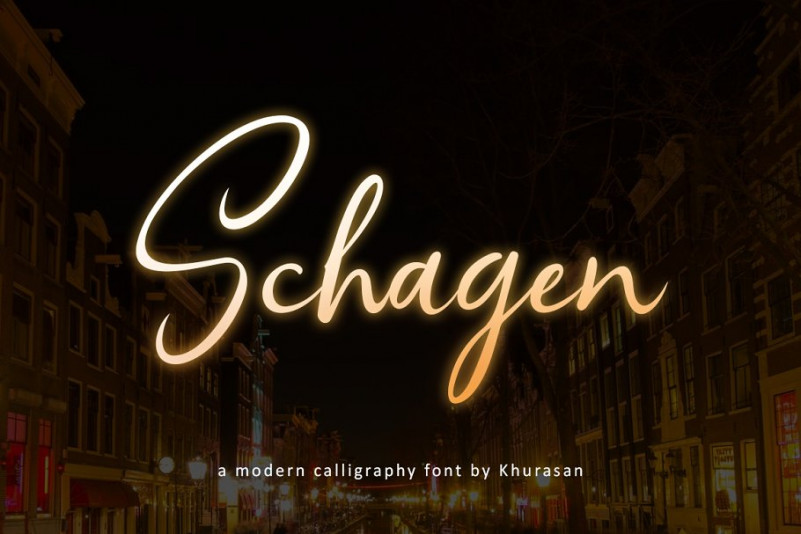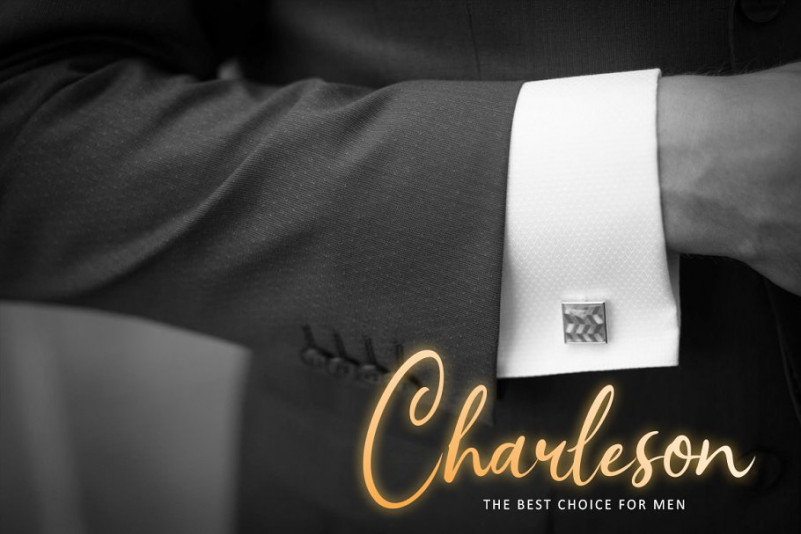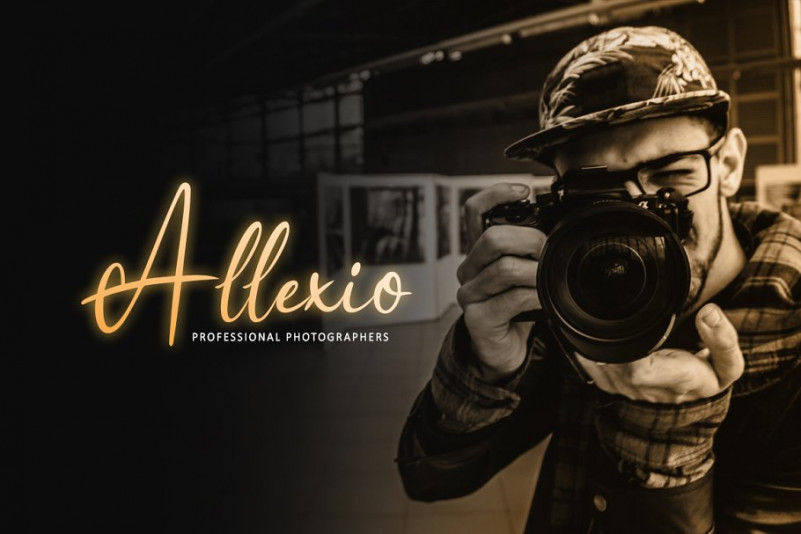
Schagen Font
The Schagen is a fresh modern script font, elegant and modern feel character set. The Schagen font includes a full set capital and lowercase letters, as well as multi-lingual support, numerals, & punctuation.